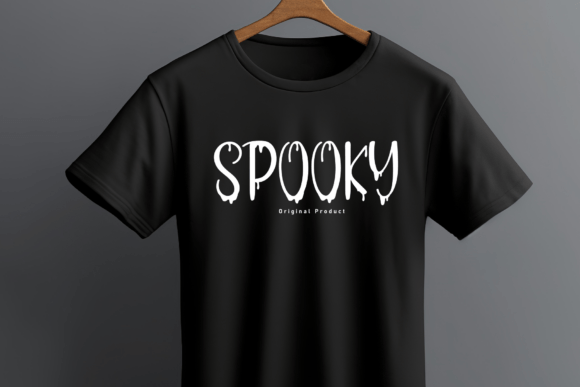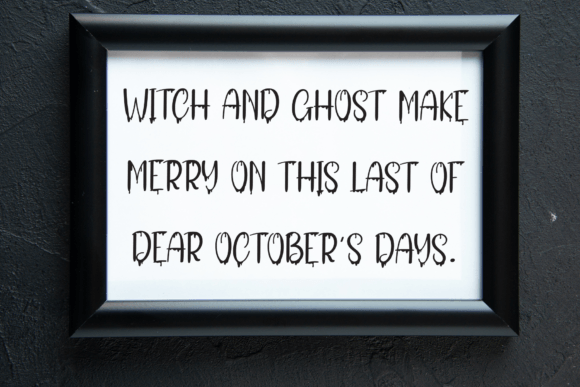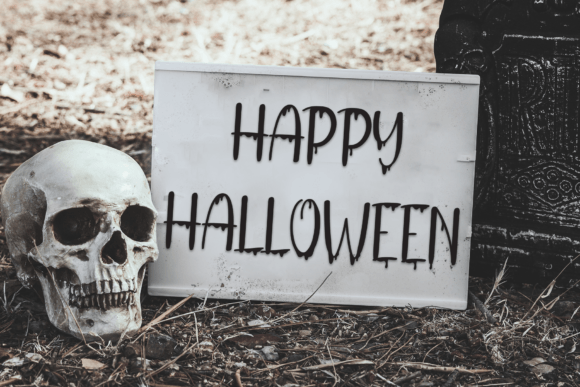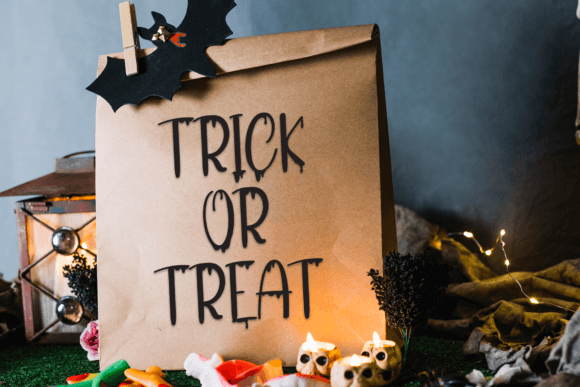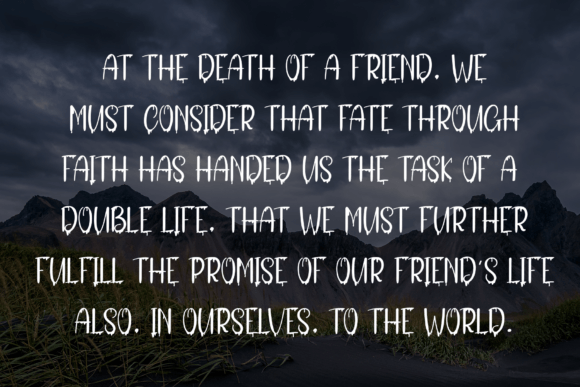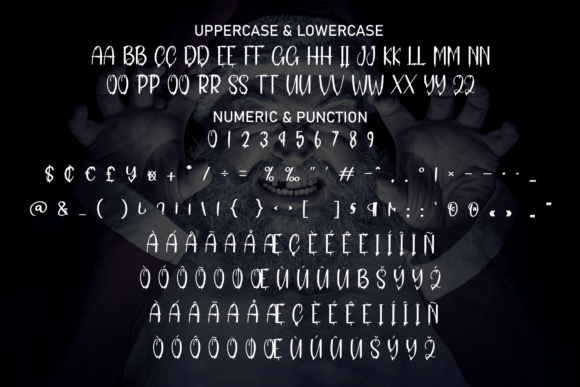
Introduction to Santa Scary Font Font
Fonts play a crucial role in design, and the Santa Scary Font font is a typeface that brings both character and versatility to any project. Whether you’re working on a branding project, a website, or a print design, the Santa Scary Font font offers a unique style that can elevate your work.
Welcome to the whimsical world of our handwritten display font.
Overflowing with a sweetness thatβs almost contagious, this font exudes an inviting friendliness that melts hearts and resonates with joy Whether youβre crafting magnificent wedding invitations or creating poignant cards, this cheerful font adds a delightful dash of fun.
Key Features of Santa Scary Font Font
Why Choose Santa Scary Font Font?
The Santa Scary Font font is more than just a typeface β it’s a design tool that helps you communicate your message with style and clarity. Its unique character set and versatile design make it suitable for a wide range of applications, from elegant invitations to bold headlines.
With its carefully crafted letterforms and balanced proportions, the Santa Scary Font font ensures readability and visual appeal across all mediums.
What makes Santa Scary Font font special?
The Santa Scary Font font stands out with its unique design, exceptional readability, and versatility across various design applications.